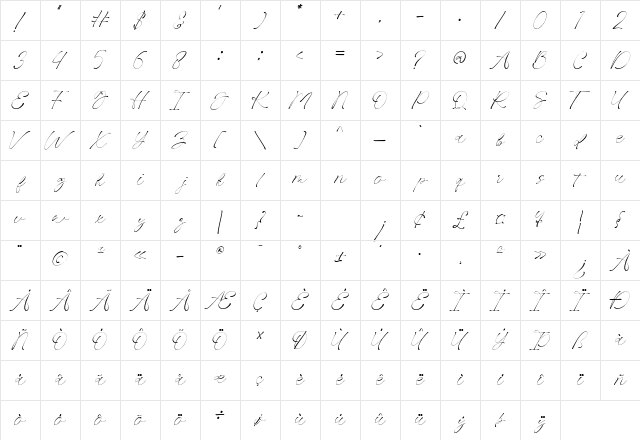
Aerpthine Regular
Designer: Enxyclo Studio
Design Context for Aerpthine
Aerpthine is a composed and adaptable typeface that performs quietly and consistently across a wide range of design contexts. Its slender proportions lend an understated elegance to any composition.